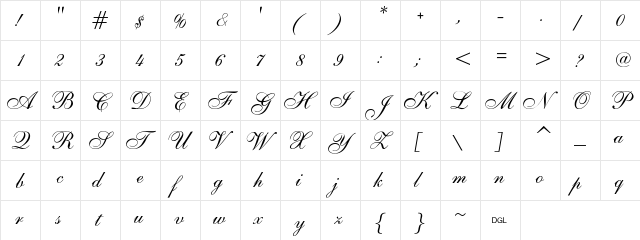
ALS Script Regular
| Foundry | Digital Graphic Labs |
| Designer | Digital Graphic Labs |
Design Context for ALS Script Typeface
ALS Script brings a calligraphic fluidity to the page — its connecting strokes and expressive curves give it an unmistakably human quality.
Font Pairing: Combine ALS Script with a simple geometric sans for maximum contrast — the tension between flowing curves and clean structure is a classic typographic pairing.
Pro Tip: Pair ALS Script with a clean sans-serif for supporting text. The contrast between fluid script and geometric structure creates an elegant typographic hierarchy.